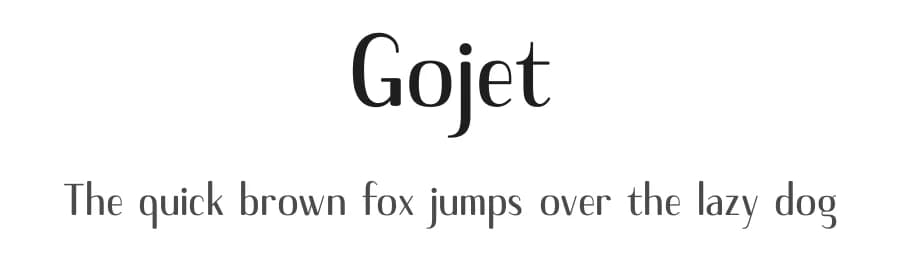
About Gojet Font
Gojet is a sans-serif font designed by 611 Studio. It includes 230 glyphs, a regular weight, TTF (TrueType) format, and 224 languages. Gojet is free to download; check the license details on this page before commercial use. Sans-serif fonts like Gojet work best for clean body text, user interfaces, branding, and modern layouts.
Gojet Font is a versatile sans-serif font that works for both headings and body text. Pair it with a contrasting serif or slab serif font to add visual interest and a clear distinction between titles and body copy.